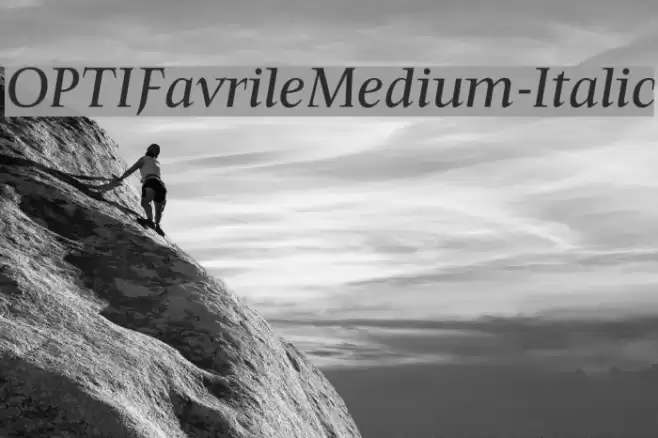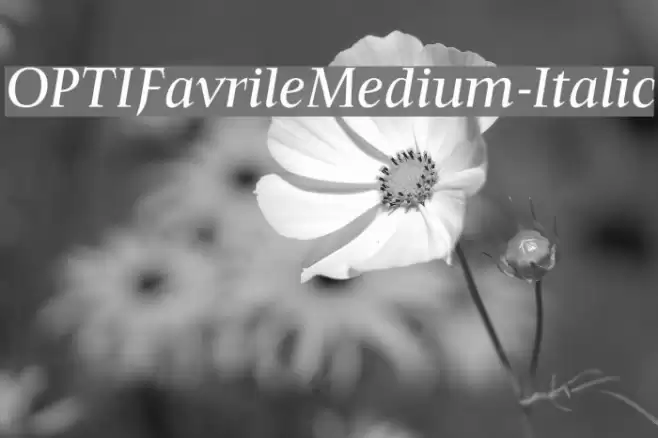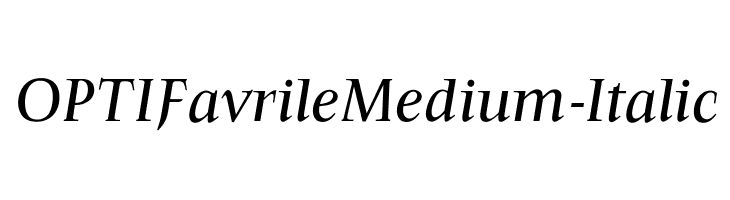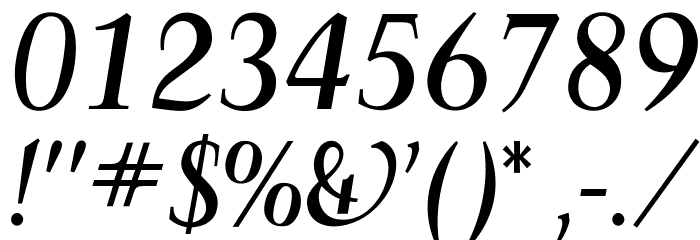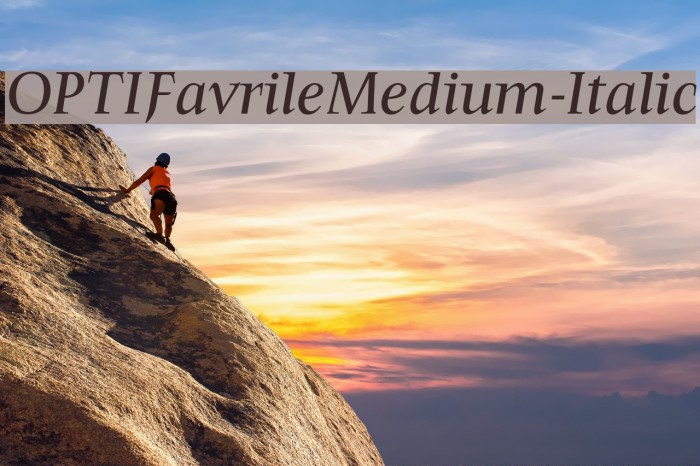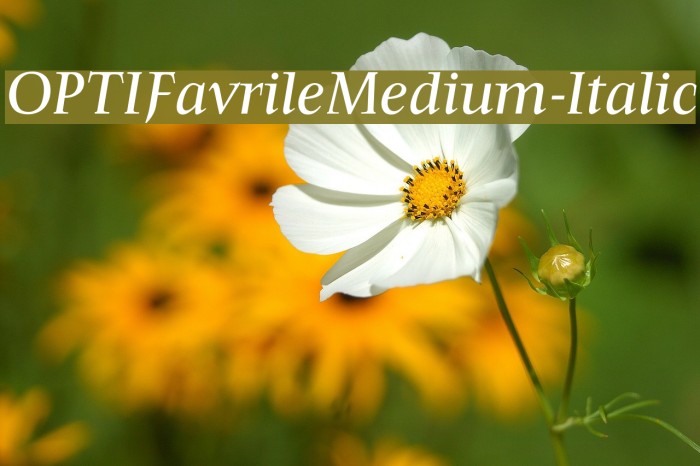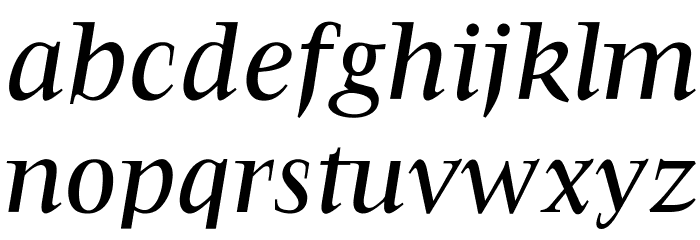
OPTIFavrileMedium-Italic Font
OPTIFavrileMedium-Italic Description
This elegant serif font features a classic italic style with smooth, flowing curves and a refined appearance. The uppercase letters exhibit a traditional formality, while the lowercase letters maintain a graceful and fluid design. The numerals are well-proportioned, complementing the overall sophisticated look. Special characters are distinct and harmonize with the font's aesthetic, making it versatile for various applications. The font's medium weight provides a balanced presence, suitable for both digital and print media.
An elegant serif font with a classic italic style and medium weight from Uncategorized fonts.
- Proposed Projects: Ideal for use in editorial design, book covers, formal invitations, and branding materials that require a touch of sophistication.
- Overall Style: Classic